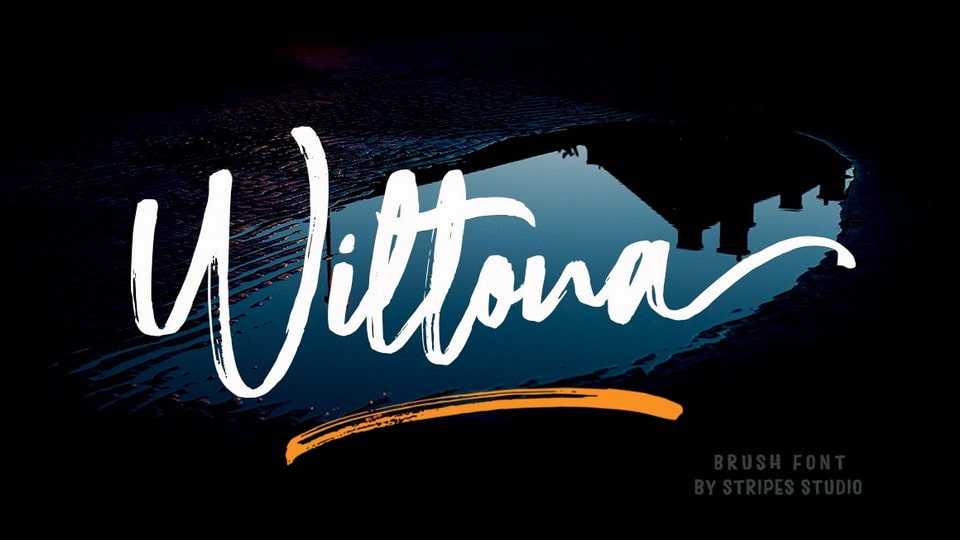
Download Wiltona Brush font, a cool and bold brushed handwritten typeface. It can be used for various purposes such as logos, wedding invitations, headings, t-shirts and more.